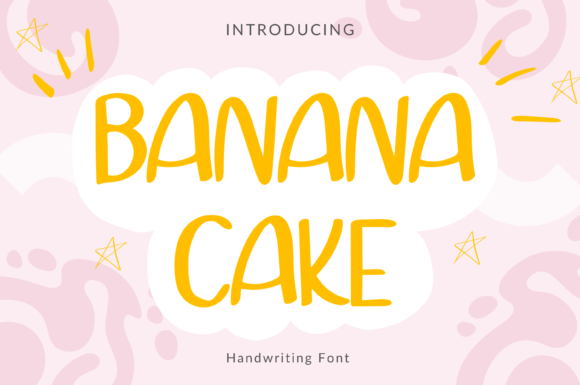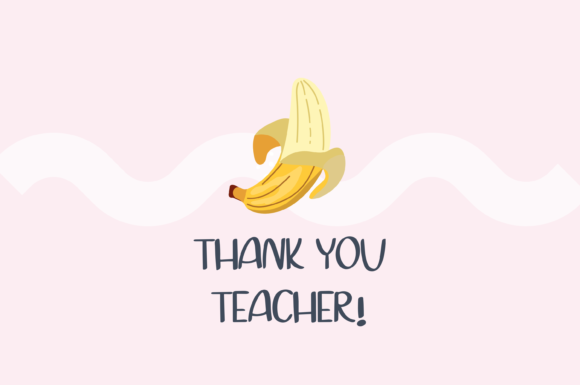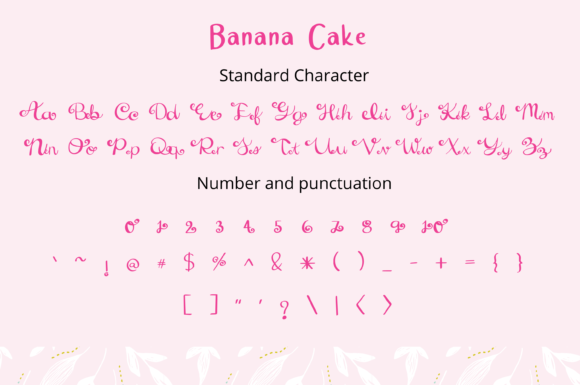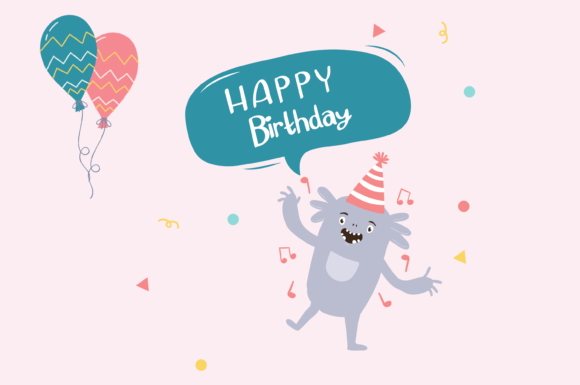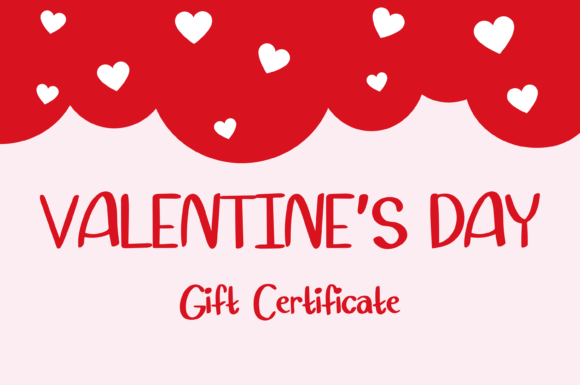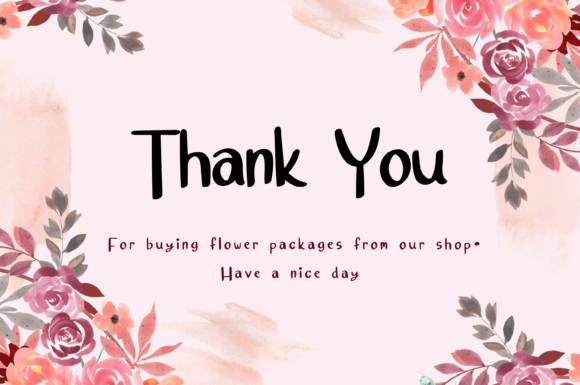
Banana Cake Style Font
About Banana Cake Style Font
“Banana Cake Style” emerges as a font that radiates whimsy and style, a handwritten script that adds a delightful touch of charm to your designs. With its playful elegance, this font becomes a versatile tool that effortlessly enhances a wide range of projects. Imagine it as a sprinkle of creativity that brings a unique and eye-catching element to every design it graces.
Visualize “Banana Cake Style” as a dance of ink and imagination, each letter exuding a sense of joy and character. Its versatility enriches your projects, transforming them into visual expressions that captivate attention and leave a lasting impact. As you integrate this font into your designs, you embark on a journey where your concepts evolve into captivating visual narratives.
This font becomes a catalyst for creativity, infusing your projects with a touch of whimsical allure. From adding a playful twist to branding elements to enhancing the appeal of logos and beyond, “Banana Cake Style” stands ready to be the stylish ingredient that makes your creative ideas shine.
In a design realm where distinctiveness and impact are essential, “Banana Cake Style” becomes your partner for crafting designs that resonate with charm and sophistication. Allow its whimsical and stylish strokes to be the artistic threads that weave through your creations, infusing them with a sense of vibrancy and elegance. Embrace the enchanting essence of “Banana Cake Style” and witness how it transforms your projects into showcases of creative brilliance, inviting all who engage with them to experience the delightful charm it imparts.